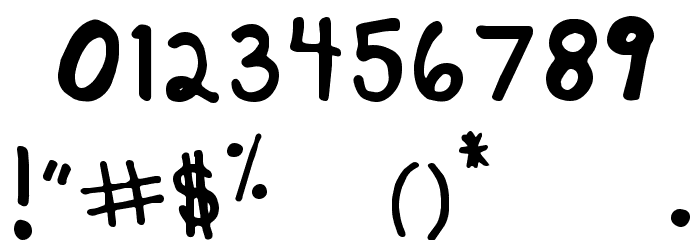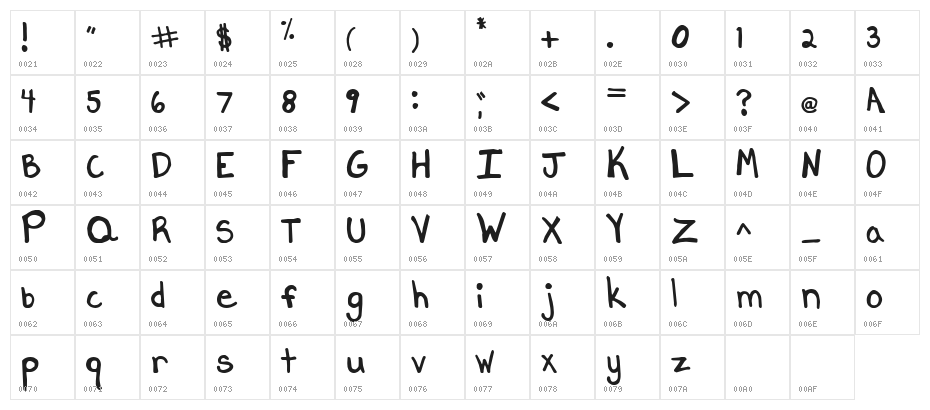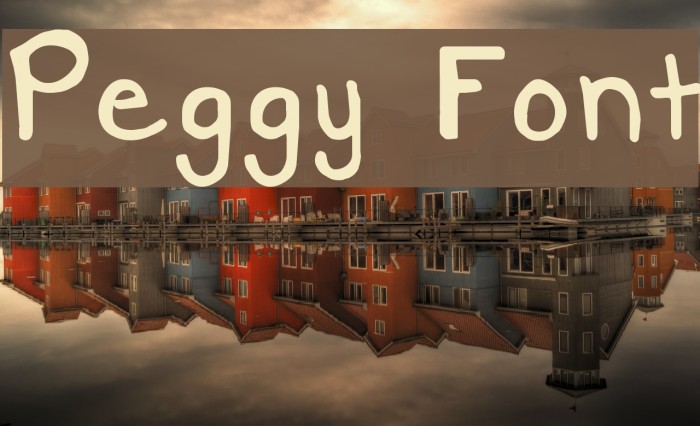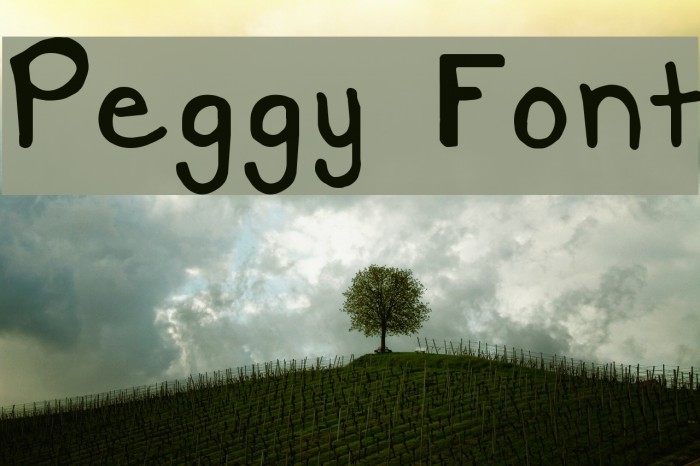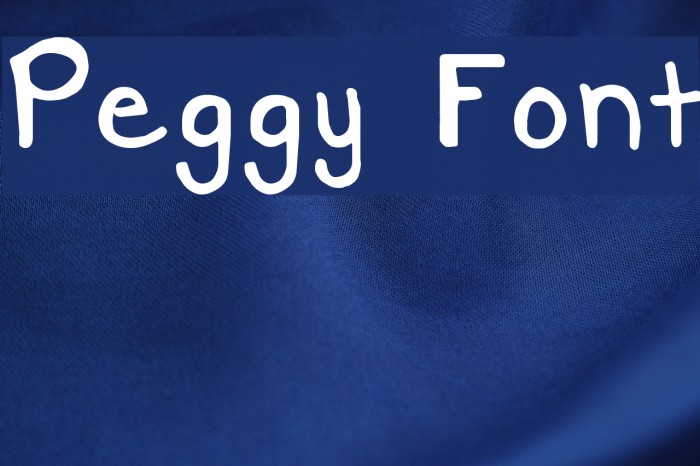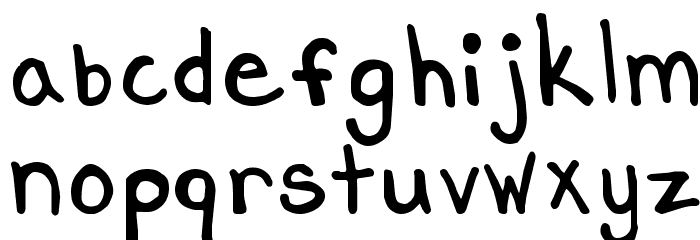
Peggy Font
Peggy Description
This playful and informal font features a handwritten style with a casual and friendly appearance. The letters are slightly irregular, adding a personal touch that mimics natural handwriting. The strokes are consistent in width, giving it a uniform look while maintaining a sense of whimsy. The characters are well-spaced, ensuring readability, and the overall design is approachable and fun. This font is perfect for projects that require a human touch, such as children's books, casual invitations, or creative branding.
| Proposed Projects | Ideal for children's books, casual invitations, creative branding, and personal projects. |